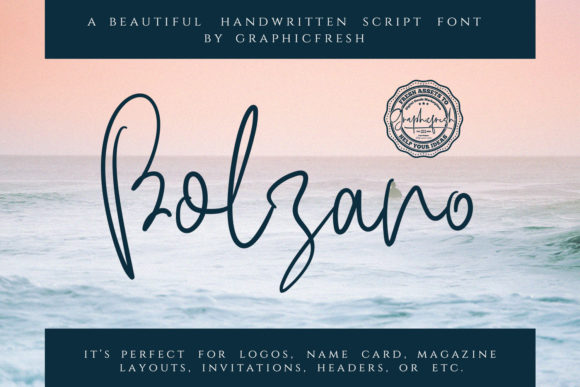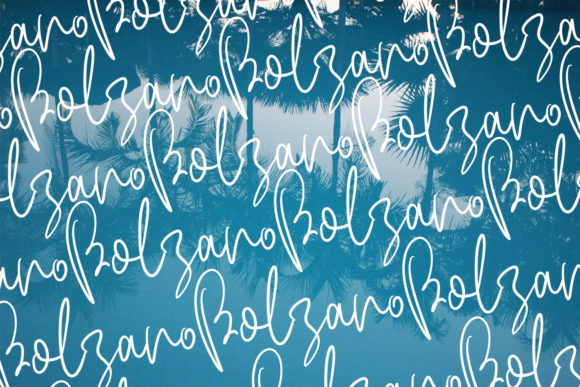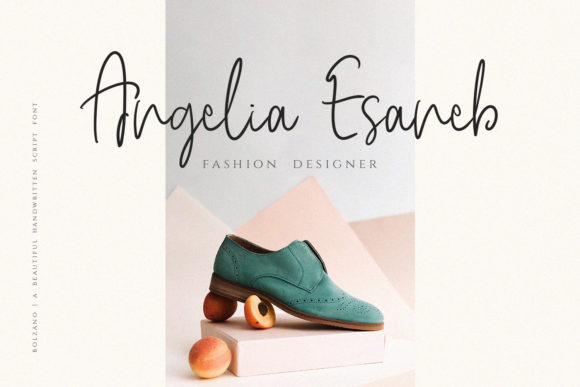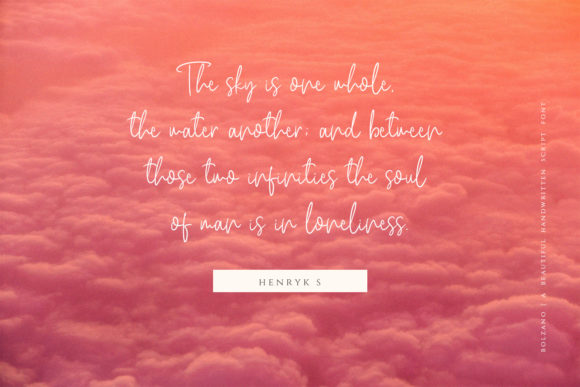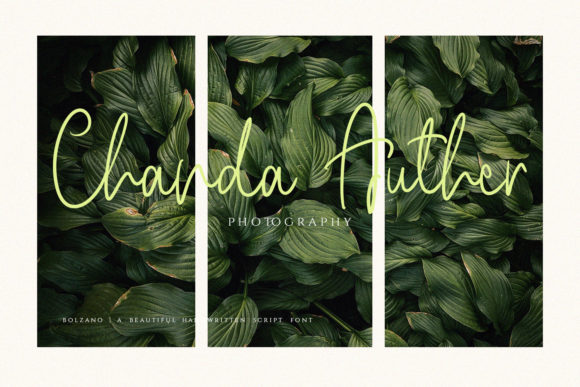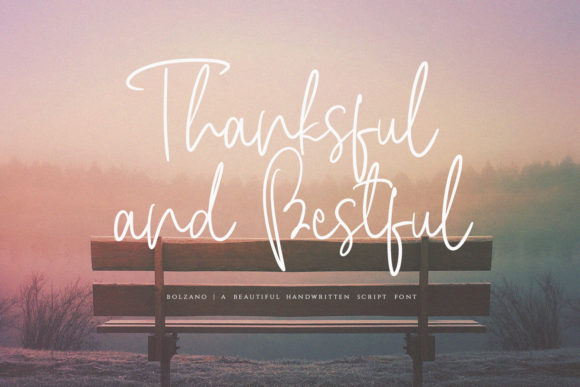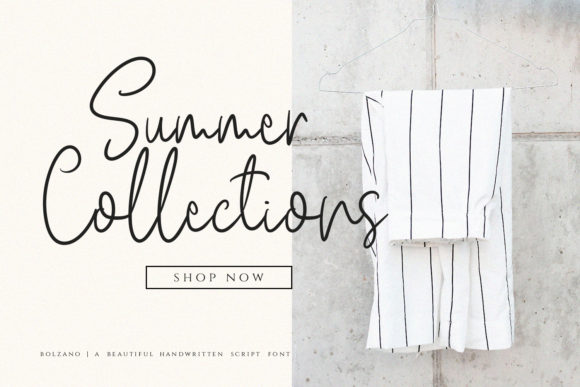
Bolzano Font
About Bolzano Font
Bolzano is a beautiful and light handwritten font with an amazing feel. It will turn any design project into a true stand out!